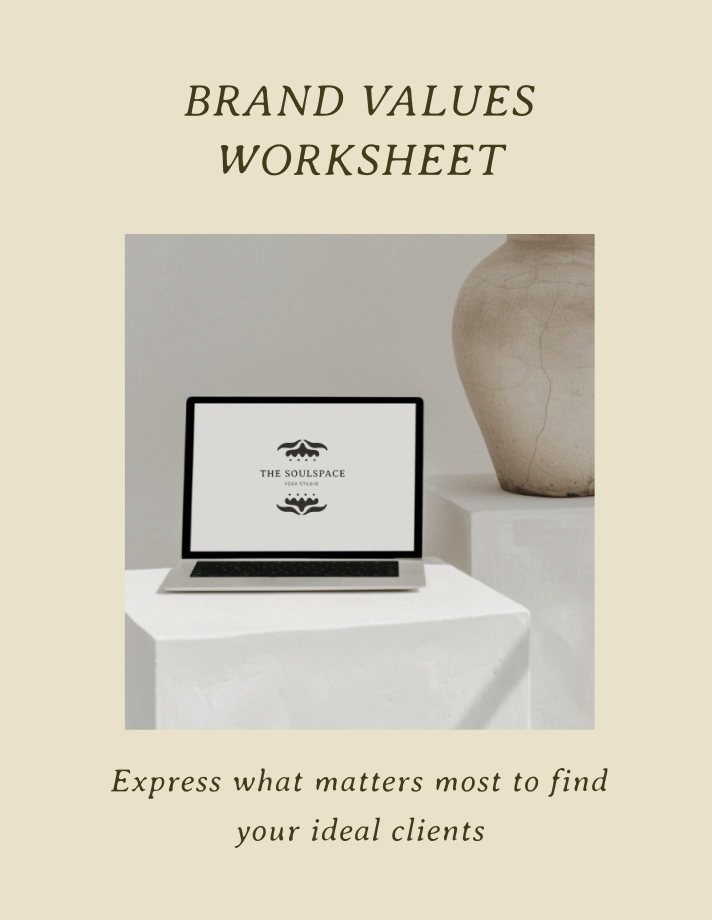
Antica Font
Experience design that transcends time with Antica, a delicate hand-drawn display font perfect for creating truly memorable logos and distinctive marks. Crafted from the heart and deeply inspired by the nostalgic beauty of my Italian roots, Antica's organic imperfections and soft touches are a direct homage to old Italian pottery and the artistry of slow-made goods.
Let this font transport your audience to a loving, wholesome, and homey space, rich with unforgettable memories. Antica is more than just a typeface; it's an invitation to indulge in a timeless aesthetic, making your brand feel authentic, cherished, and deeply connected to a beautiful past.
Use Antica everywhere: branding, print design, websites, merch, and so much more.